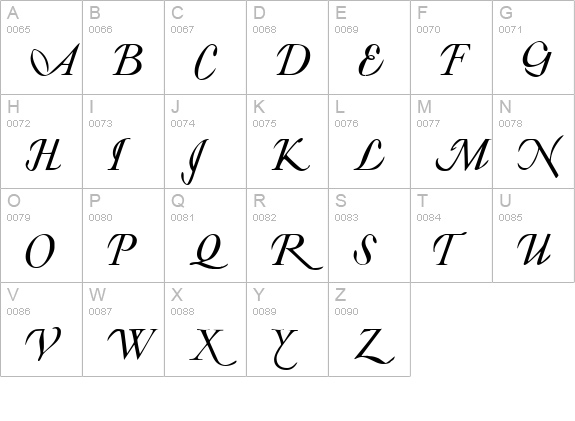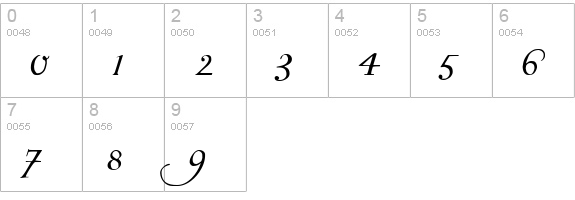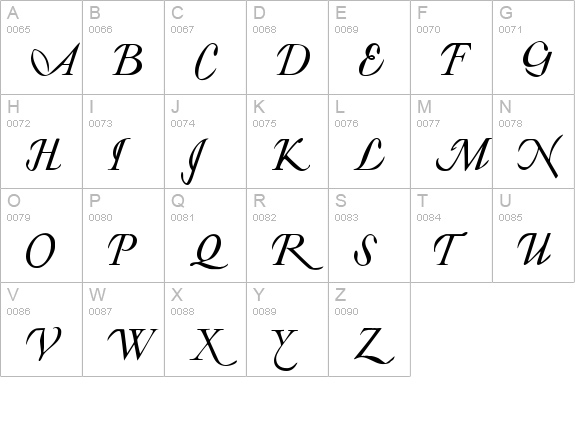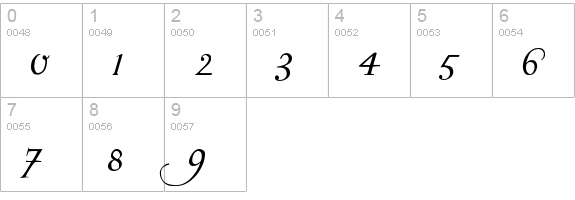
Lyonesse font is a modern and elegant typeface that exudes sophistication and style. With its sleek lines and classic appeal, this font is perfect for a wide range of design projects, from branding to invitations to editorial layouts. The timeless quality of Lyonesse font makes it a versatile choice that can elevate any design to the next level. The best part? Lyonesse font is available for free download at FontsMarket.com. This means you can easily access this beautiful font and use it in your projects without any cost. Whether you're a professional designer looking for a new addition to your font collection or a hobbyist working on a personal project, Lyonesse font is a fantastic choice that won't break the bank. Download it today and start adding a touch of elegance to your designs with this stunning typeface.